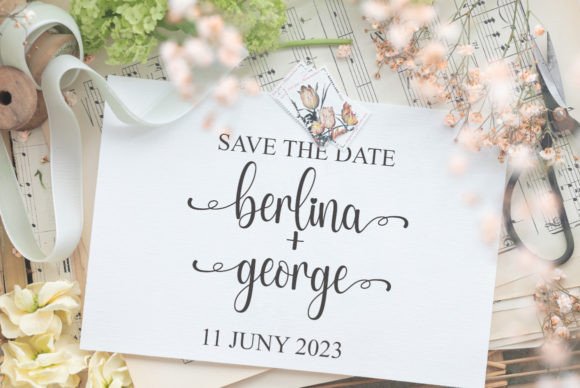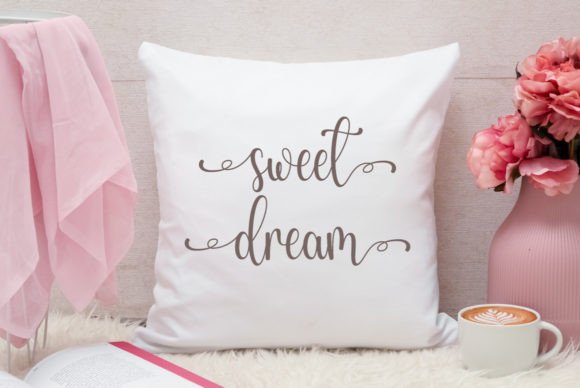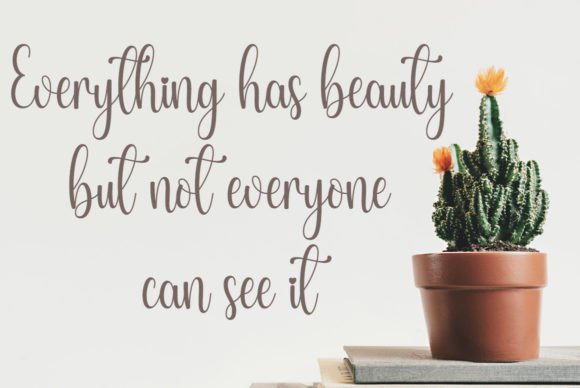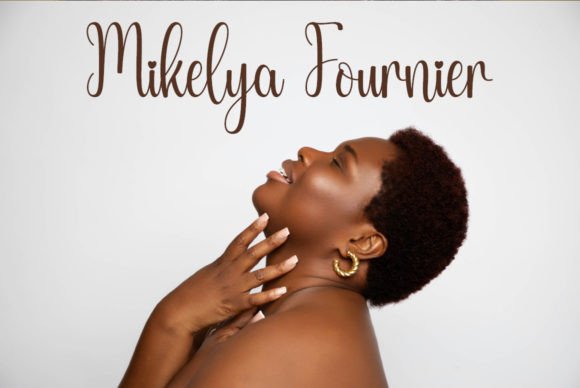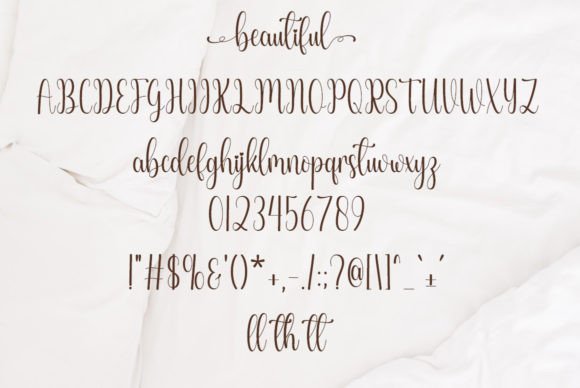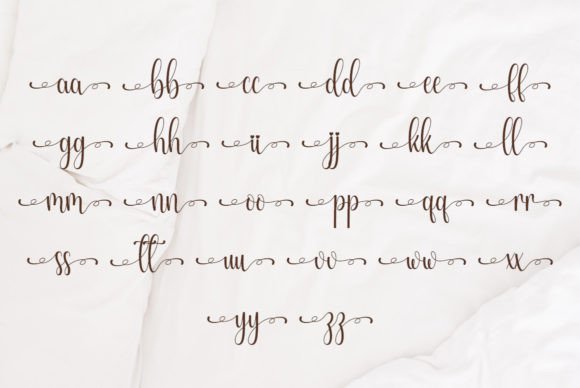
Adding a Personal Touch to Your Designs
Do you remember the first time you saw a handwritten note from a loved one, and it brought a smile to your face? The imperfections, the uniqueness, and the love that goes into creating something by hand are what make it truly special. As designers, we strive to capture that same essence in our work, and that’s where Beautiful Font comes in.
Beautiful Font is a stunning, elegant handwritten font that adds a personal touch to any design. Whether it’s a wedding invitation, a thank you card, or a logo, this font is sure to make your creations stand out. Its PUA encoding makes it easy to access all the glyphs and alternates, giving you the flexibility to customize it to your heart’s content.
Beautiful Font Key Features
- Unique Characteristics: Features a unique blend of modern and classic elements, with elegant lines and subtle flourishes, making it perfect for luxury and high-end designs.
Beautiful Font Review
I recently had the chance to work with the ‘Beautiful Font’ and I’m excited to share my thoughts on it. ✨ One thing that stands out is its unique and elegant style, which can add a touch of sophistication to any design project. The font is highly legible and works well in a variety of contexts, from body text to headings.
Another advantage of the ‘Beautiful Font’ is its versatility. It comes in a range of weights and styles, making it easy to find the perfect combination to match your design needs. ✨ I also appreciate the font’s versatility in digital and print formats, ensuring a consistent look across different platforms.
While the ‘Beautiful Font’ is a great addition to any designer’s toolkit, there are a few limitations to consider. ⚠️ For one, it may not be the best choice for projects that require a bold, attention-grabbing font. Additionally, some users may find the font’s elegance and sophistication to be too refined, potentially making it less effective for certain audiences.
Overall, I’m impressed with the ‘Beautiful Font’ and would definitely recommend it to designers looking for a high-quality, elegant font. While it may have some limitations, its versatility and unique style make it a valuable addition to any design project.
- Unique and elegant style
- Highly legible
- Range of weights and styles
- Versatile in digital and print formats
Beautiful Font: A Practical Application Guide
Tips for Getting the Most Out of Beautiful Font
Use Beautiful Font in combination with a bold and colorful design to make your text stand out.
Use Beautiful Font for headings and titles to add a touch of elegance to your design.
Beautiful Font is ideal for:
Blog posts and articles
Any design project that requires a touch of sophistication and elegance
What is the recommended font size for Beautiful Font?
The recommended font size for Beautiful Font is between 12 and 24 points. At smaller sizes, the font may become difficult to read, while larger sizes may make it appear too bold. However, the optimal font size will depend on your specific design and the intended audience.